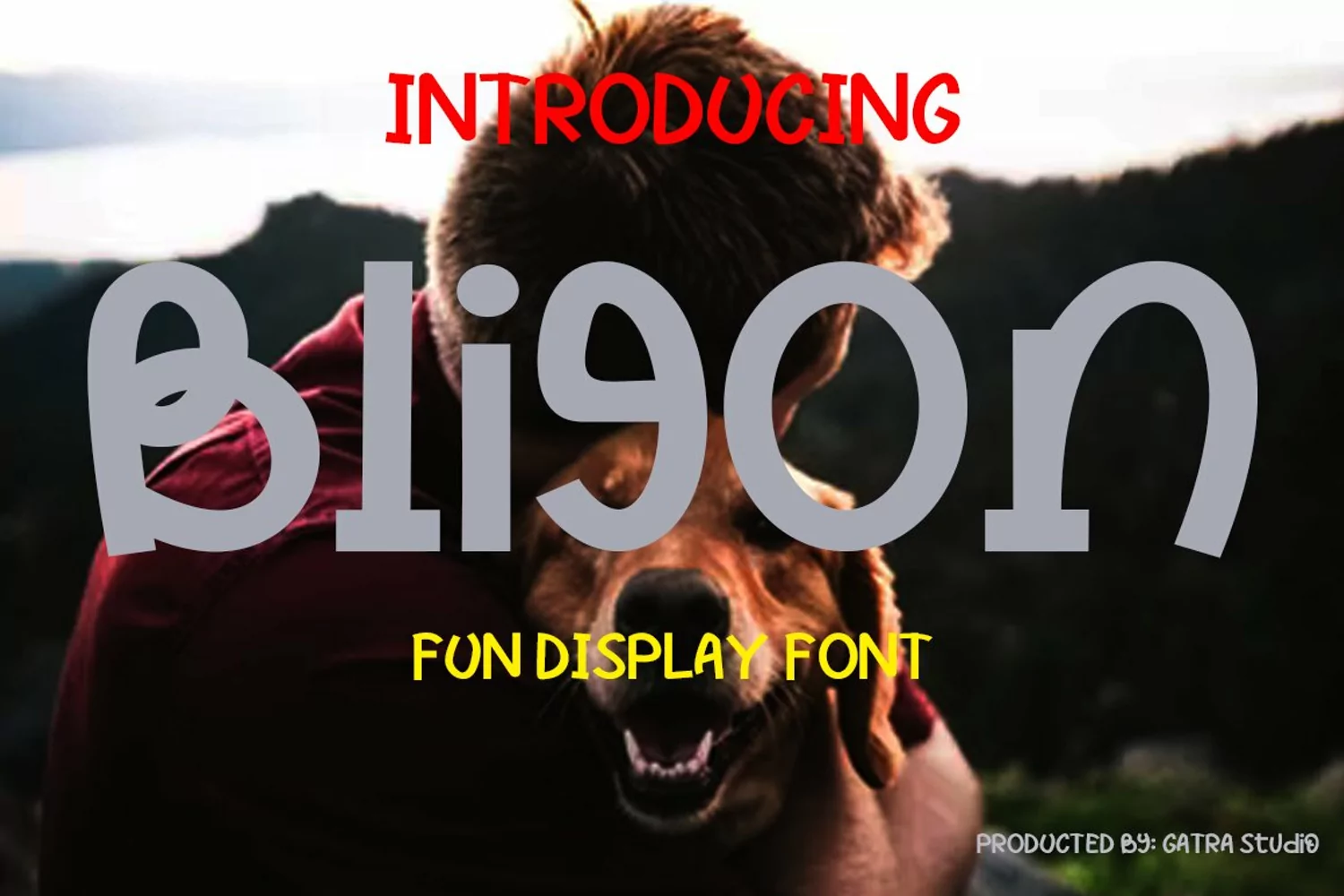
Bligon
Introducing a cute handwriting "Bligon" Handwritten Display Font!
If you are needing a touch of casual modern display for your designs, this font was created for you!